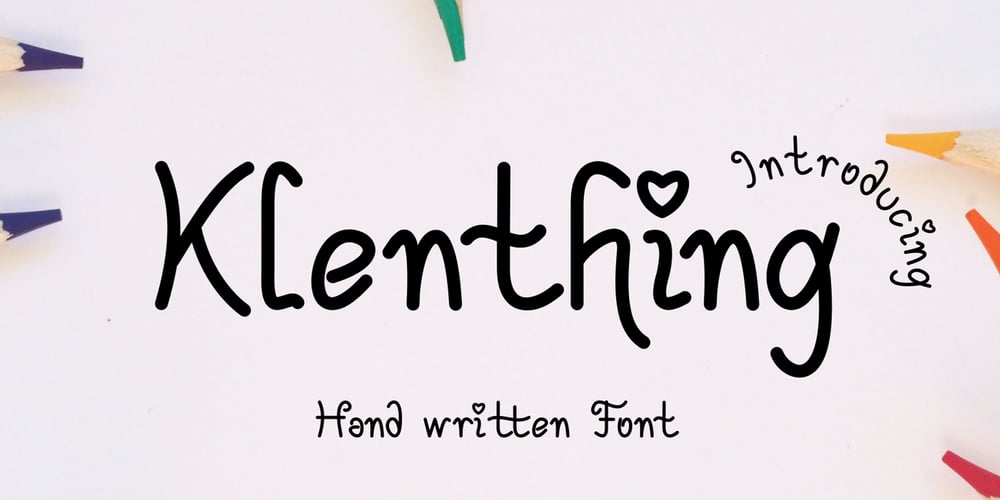
Klenthing Font Family was designed by Rohmat Sidiq Mustaqim and published by Dieza Design. Klenthing contains 1 styles and family package options. Klenthing is a simple typeface. It’s handwritten and is perfect for invitations, branding, blog posts, greeting cards, DIY projects, labels, quotes, and more!